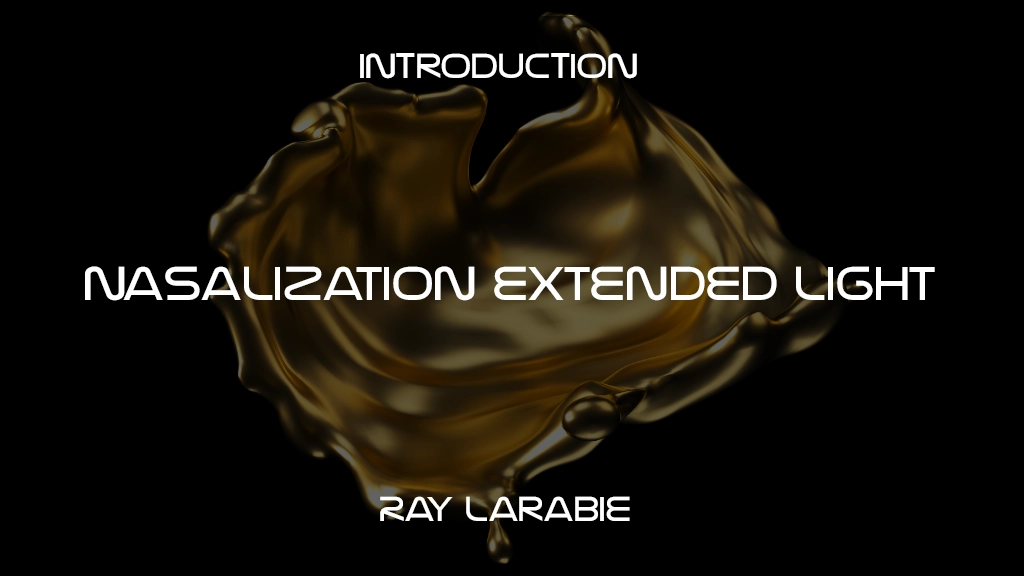
Nasalization Extended Light is a free font designed by Ray Larabie.It is a Regular font, which means that it has a balanced appearance.The font is perfect for all your fun designs, such as posters, flyers, and social media graphics.